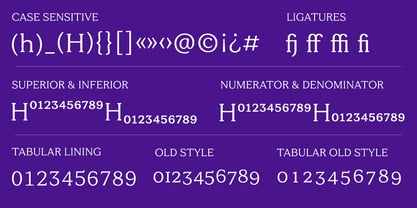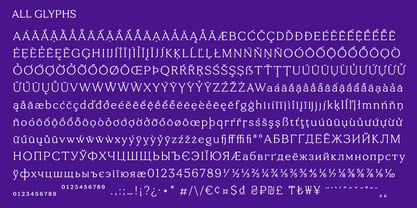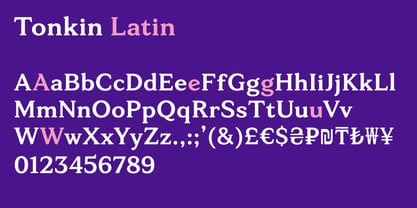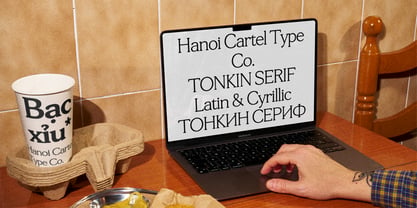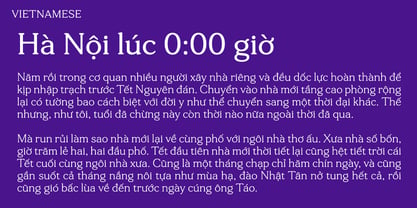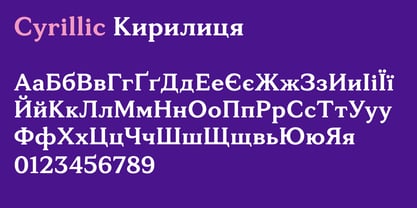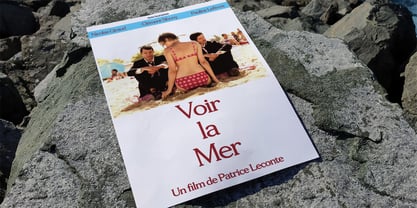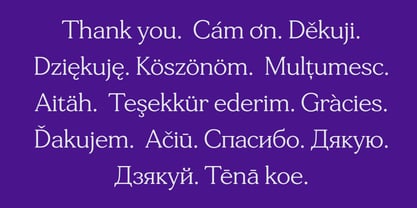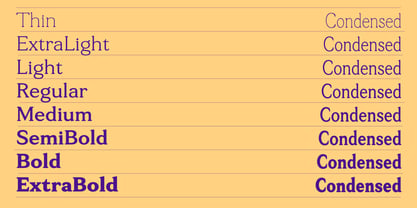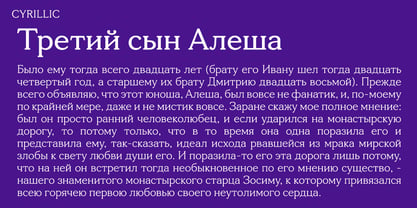
Tonkin Serif
by Hanoi Cartel
Hello! I'm Thang. I live in Hanoi, and for the past few years, I’ve been teaching myself the art of type design. I wouldn't call myself an expert just yet—I’m still very much on the path—but I’ve reached a point where I want to share something I’ve made with you. It’s a serif typeface called Tonkin. I didn't set out to create the "perfect" font. To be honest, I think there are enough perfect fonts out there already. They are beautiful, sure, but sometimes they feel a bit cold, like a room where you’re afraid to sit down because you might mess up the pillows. I wanted Tonkin to feel more like a comfortable reclining chair in a friend’s house. It’s nice and it actively wants you to lean back and relax (hence the soft rounded corners). A Bit of a Backstory The name comes from where I live. Tonkin is the old name for Northern Vietnam. When I walk around Hanoi, I see a lot of history—a mix of old architecture, messy street signs, and a lot of life. It’s not a "neat" city, but it has a wonderful soul. That’s what I wanted for this typeface. I wanted it to have that sense of history you get from a serif, but with the friendly, slightly mismatched energy of the streets I walk every day. I think those little shortcomings are what make things more human. We all have our own little defects, and that’s usually why our friends love us. I hope that’s why you might like Tonkin, too. Casual Elegance I think there’s a big difference between something being elegant and something being "luxury." Luxury often feels like it's trying to exclude people. Tonkin isn't trying to be expensive; it’s just trying to be nice. I’d call it "casual elegance." It’s like wearing a nice linen shirt but leaving the top button undone. It’s for when you want to look your best but still want to be approachable. It’s not meant for a super-serious legal document, but it’s perfect for places where people are being kind to each other—a local café menu, a small brand that cares about its community, or a personal project where you want the reader to feel like they’re being spoken to by a real person. What’s Included? I wanted to make sure Tonkin was actually useful for your projects. I ended up making 8 different weights. I also made a condensed version for every single weight, giving you 16 styles in total. Since I love languages, I wanted Tonkin to speak to as many people as possible. It supports Latin (with a lot of care put into the Vietnamese accents) and Cyrillic. In the pictures I’ve shared, you can see some "pink" letters—those are just some alternative versions I made so you can change the mood of a word here or there. Who is Tonkin for? If you are looking for a font that is mathematically flawless, Tonkin might not be for you. But if you want something warm, honest, and friendly, I think you and Tonkin will get along quite well. I’ve been working on this for a long time. Some days it felt right, and other days I felt like I was just moving lines around. But seeing it now, I’m happy with it. It represents where I am on my journey. If you decide to use Tonkin, thank you—it helps me keep learning and making nice things.
Hanoi Cartel is a type foundry based in Hanoi, Vietnam, dedicated to crafting soulful and culturally resonant typefaces. The foundry places a strong emphasis on extensive language support, aims to make its typefaces accessible and versatile for diverse linguistic needs.Deeply rooted in Vietnam’s visual history, Hanoi Cartel draws inspiration from two opposite yet influential design traditions of Vietnamese typography in the 20th century: The bold, assertive lettering styles of Vietnamese communist-era propaganda posters , which is very well-known for their powerful visual impact and ideological clarity. The intricate, handcrafted lettering of advertising boards in southern Vietnam before 1975, which reflect a more commercial, artisanal aesthetic with very creative solution for diacritics. By appreciating these visual legacies, we strive to create typefaces that are not only functional but also rich in narrative and cultural depth.